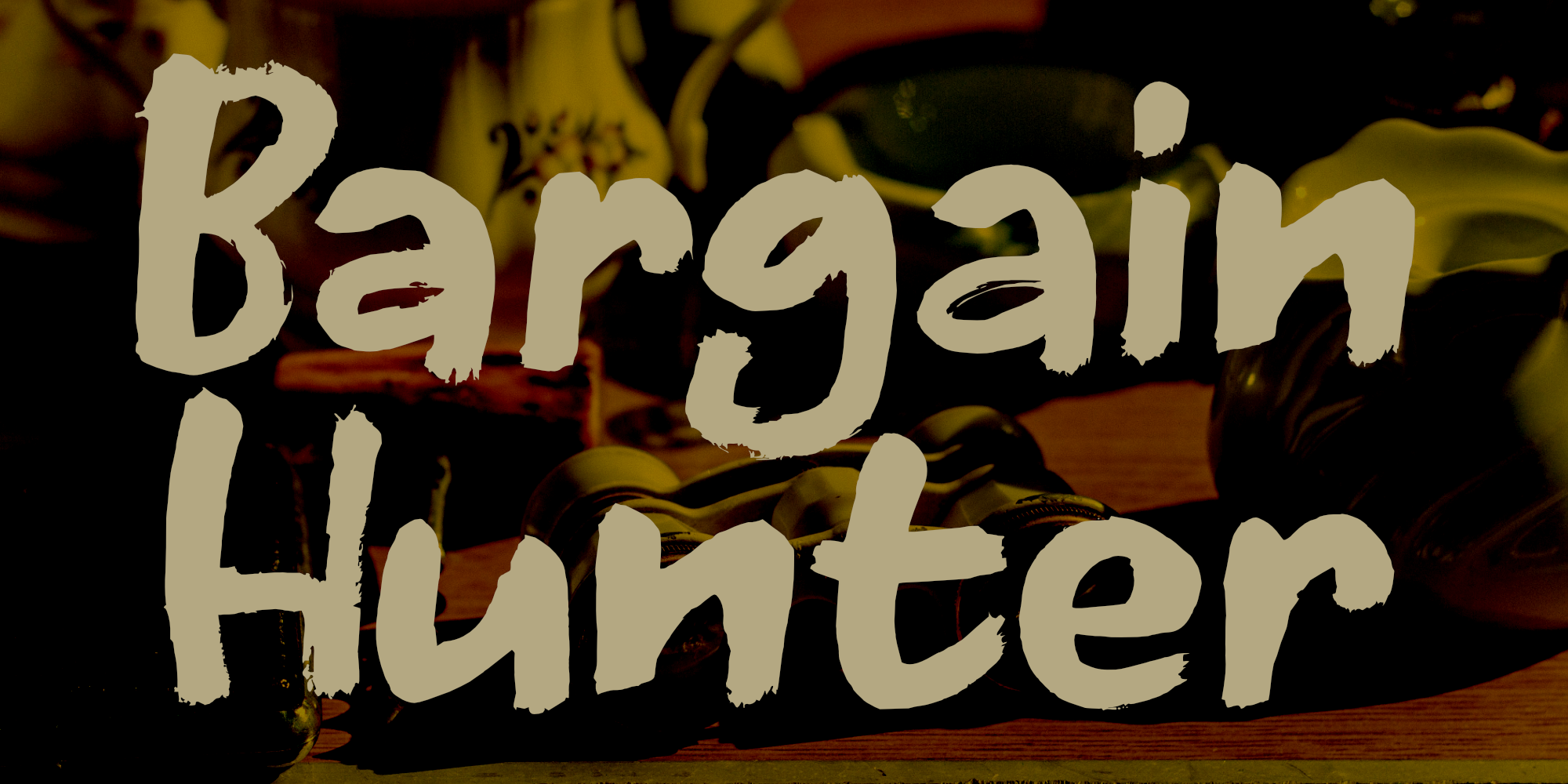
Bargain Hunter Font is ideal for retail design projects including discount store signage, clearance sale flyers, promotional advertising materials, budget-friendly brand logos, thrift shop marketing, outlet mall communications, coupon designs, value-oriented packaging, flash sale graphics, and consumer-focused campaigns that require eye-catching typography with strong commercial appeal and accessibility.
What makes Bargain Hunter Font so exciting is its perfect balance of bold visibility with friendly approachability that instantly communicates value and savings while maintaining excellent readability at various sizes. This dynamic typeface features strong, confident letterforms with optimized spacing and clear character distinction that ensures maximum impact in competitive retail environments, making it ideal for brands focused on delivering exceptional value to cost-conscious consumers.
Bargain Hunter Font typically comes in versatile font families including regular, bold, condensed, and outline versions, along with decorative elements, promotional symbols, and special characters for pricing displays, providing designers with comprehensive tools to create impactful retail communications and attention-grabbing promotional materials.
This compelling Bargain Hunter Font Free Download offers creative professionals an exceptional tool for projects requiring strong commercial presence and value-focused messaging. Whether you're developing retail branding, promotional campaigns, or budget-conscious marketing materials, this font delivers powerful visual impact while ensuring clear price communication and promotional clarity. The bold design characteristics and practical styling options make it particularly valuable for discount retailers, promotional marketers, and value-oriented businesses seeking to communicate savings, accessibility, and customer-focused pricing through typography that captures attention and drives consumer engagement in competitive retail environments.